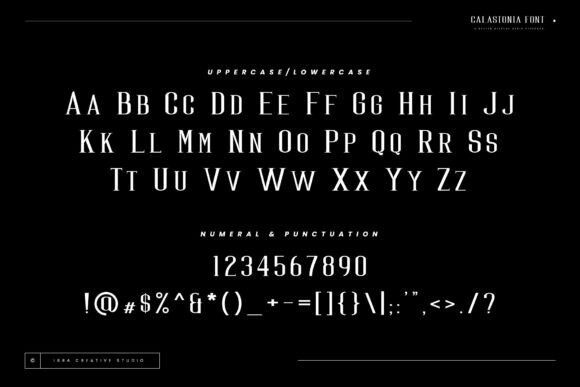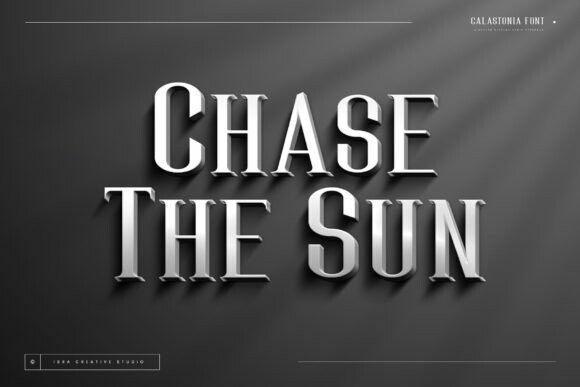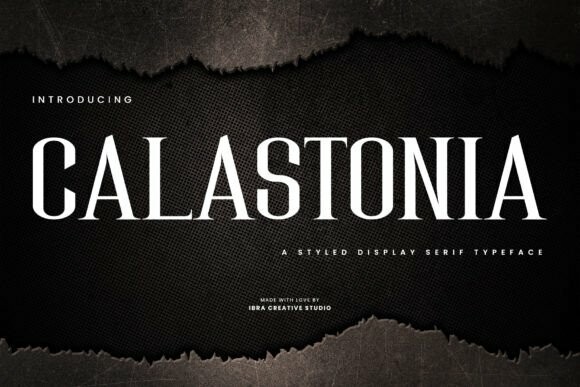
Calastonia Font
Designer: ibracreative
Calastonia Font is a meticulously crafted styled display serif typeface that exudes a perfect blend of sophistication and modern elegance. With its distinct letterforms and refined details, Calastonia brings a timeless charm to any design project. The typeface showcases a balanced combination of serifs and graceful strokes, creating a harmonious visual appeal that captures attention and conveys a sense of luxury.